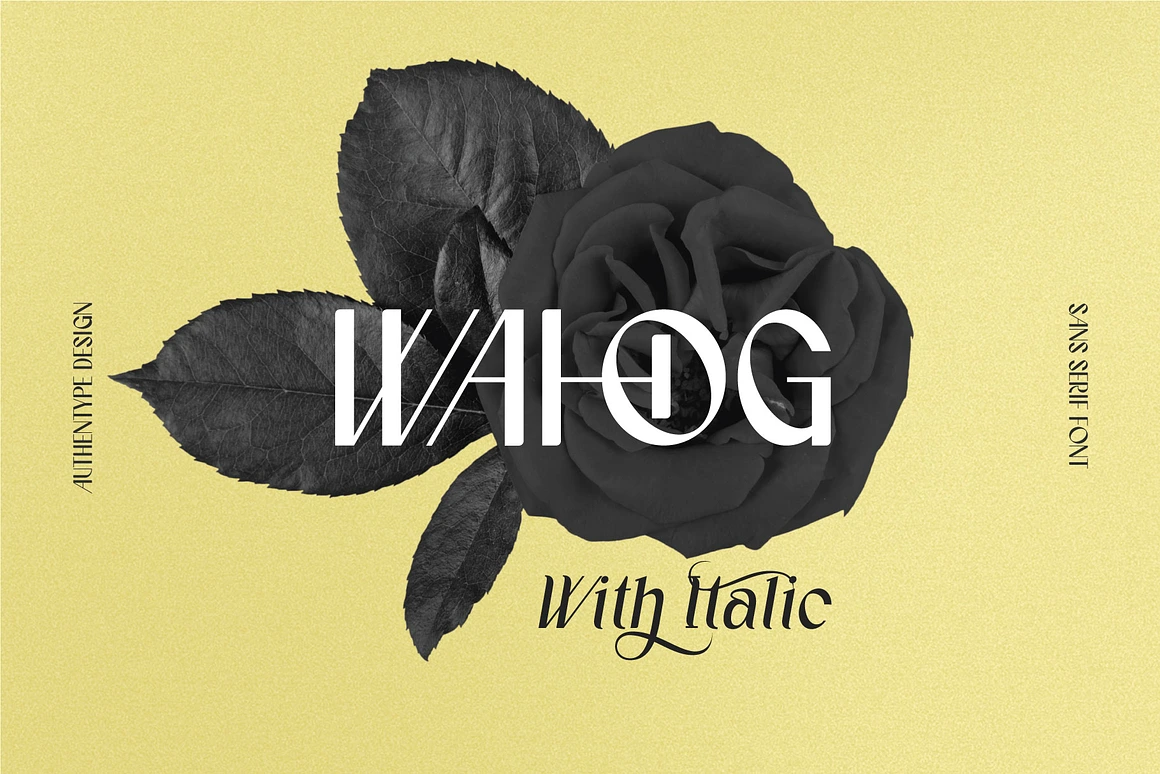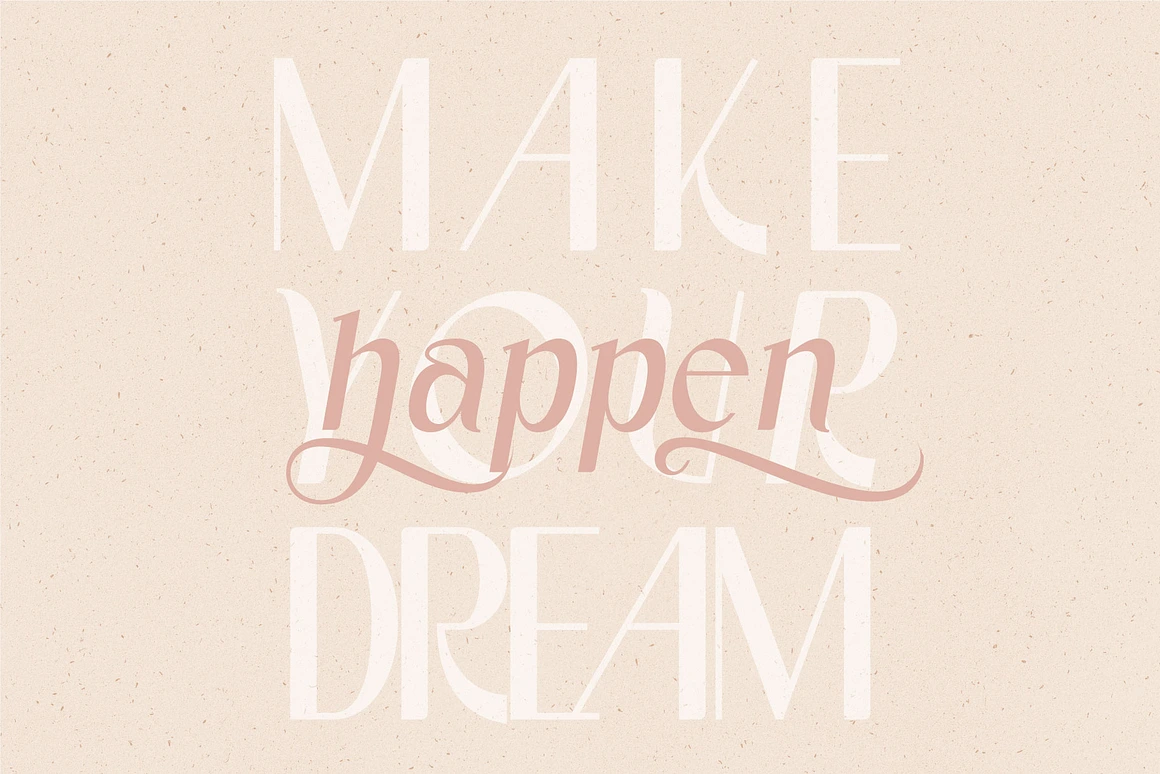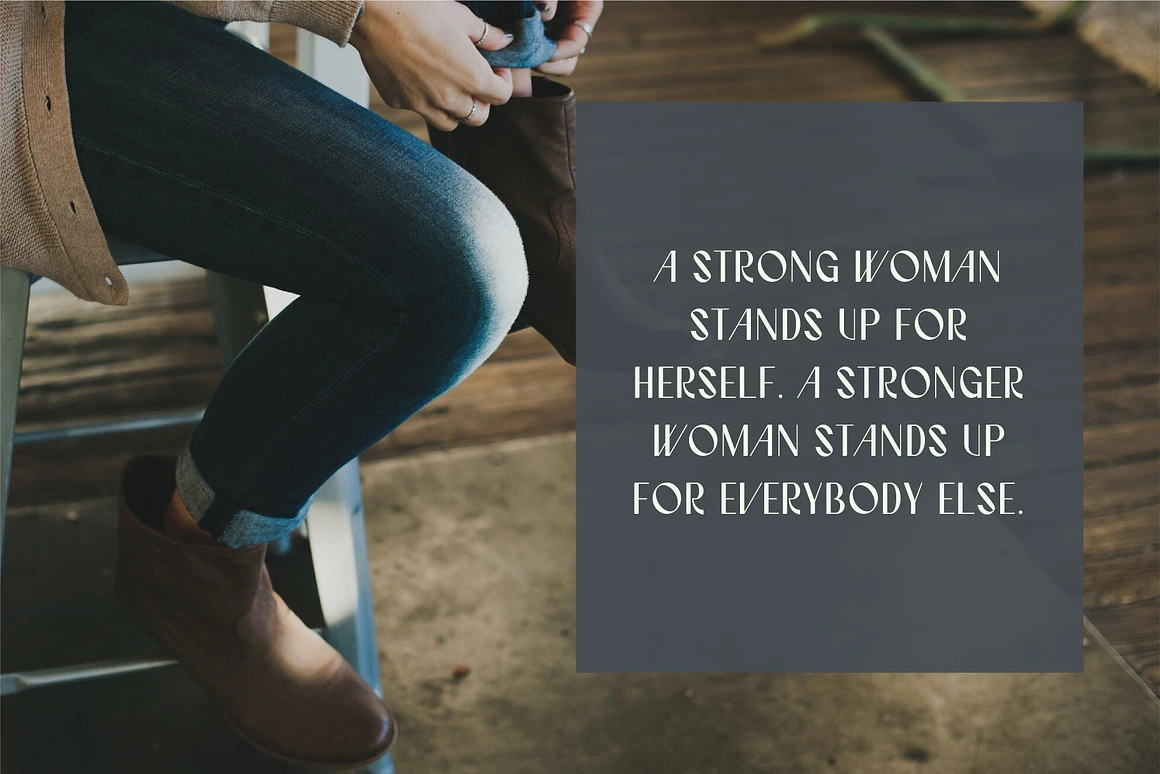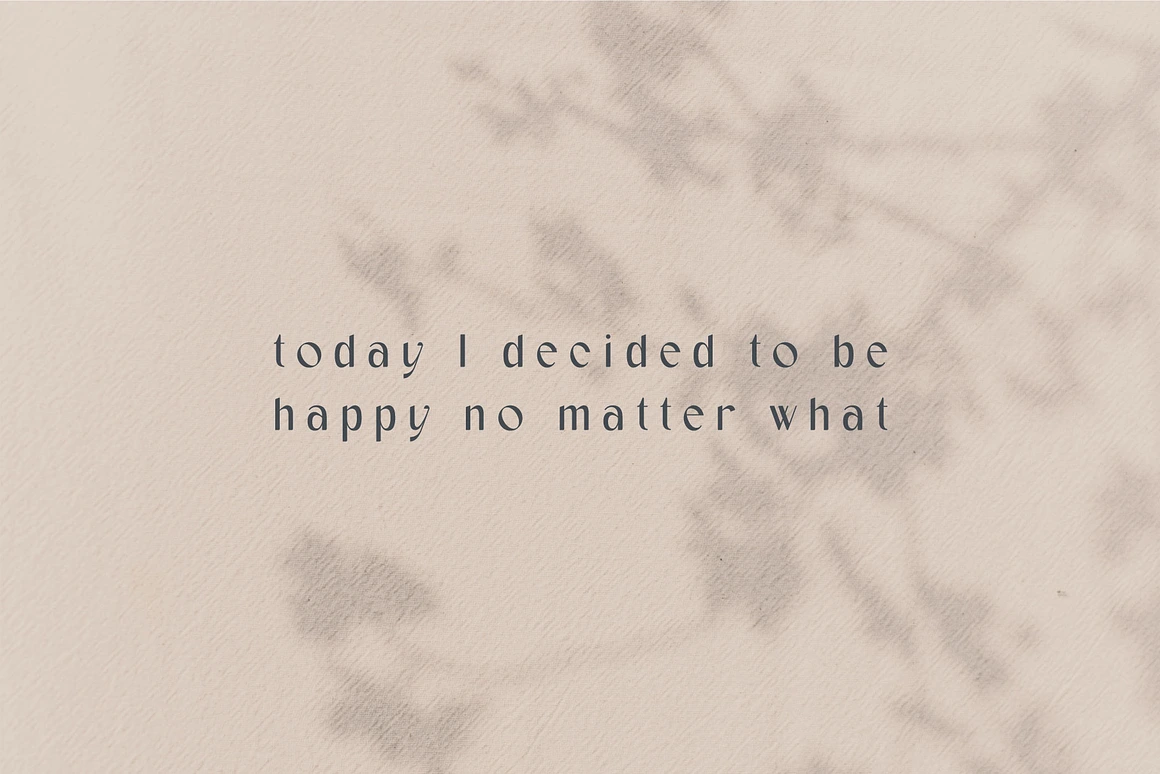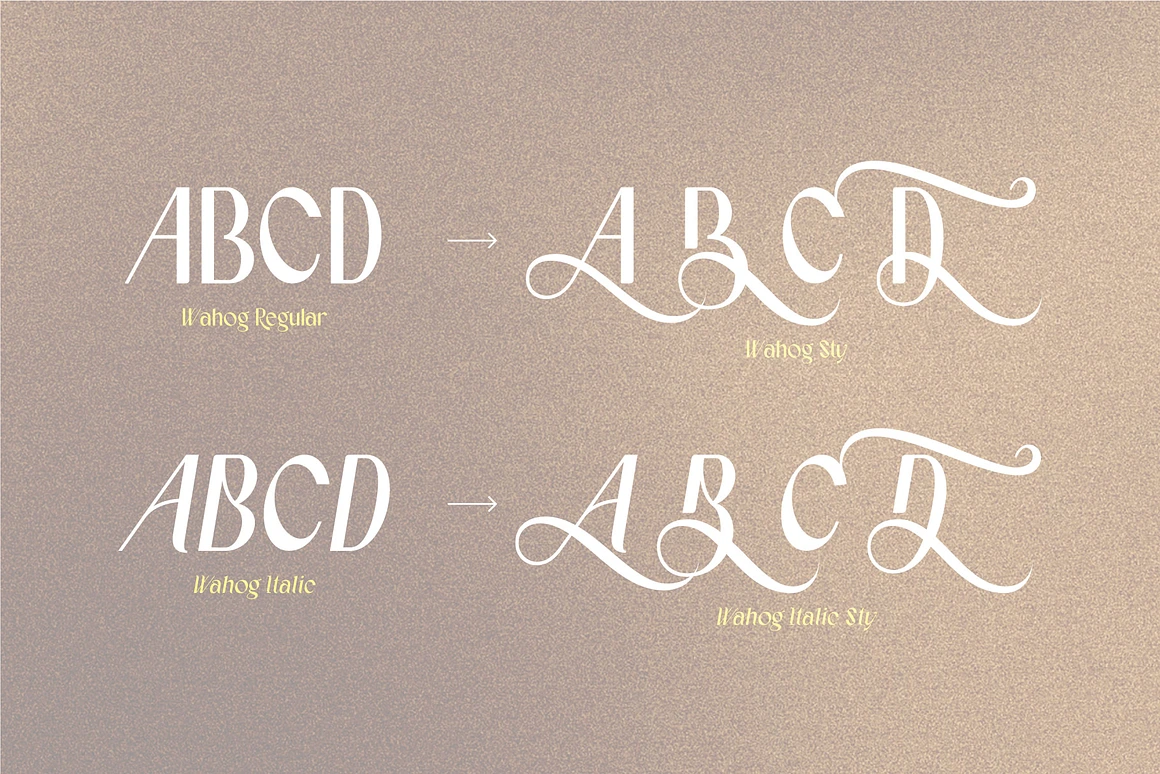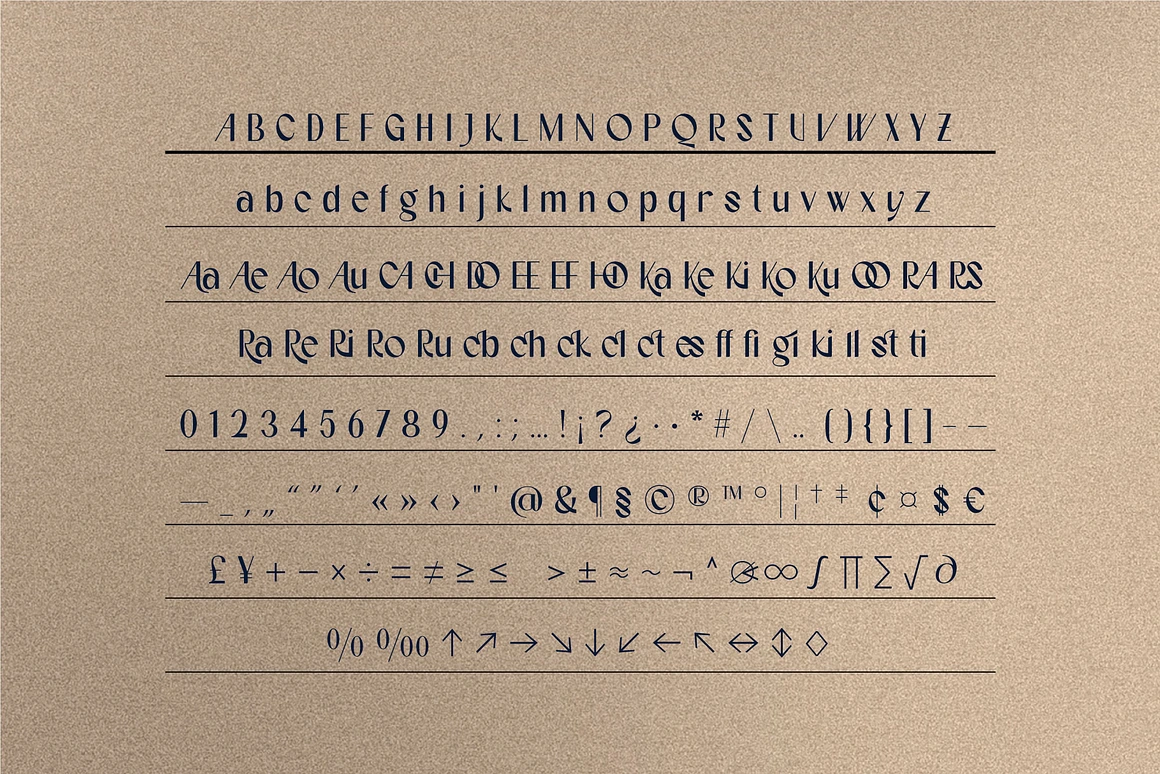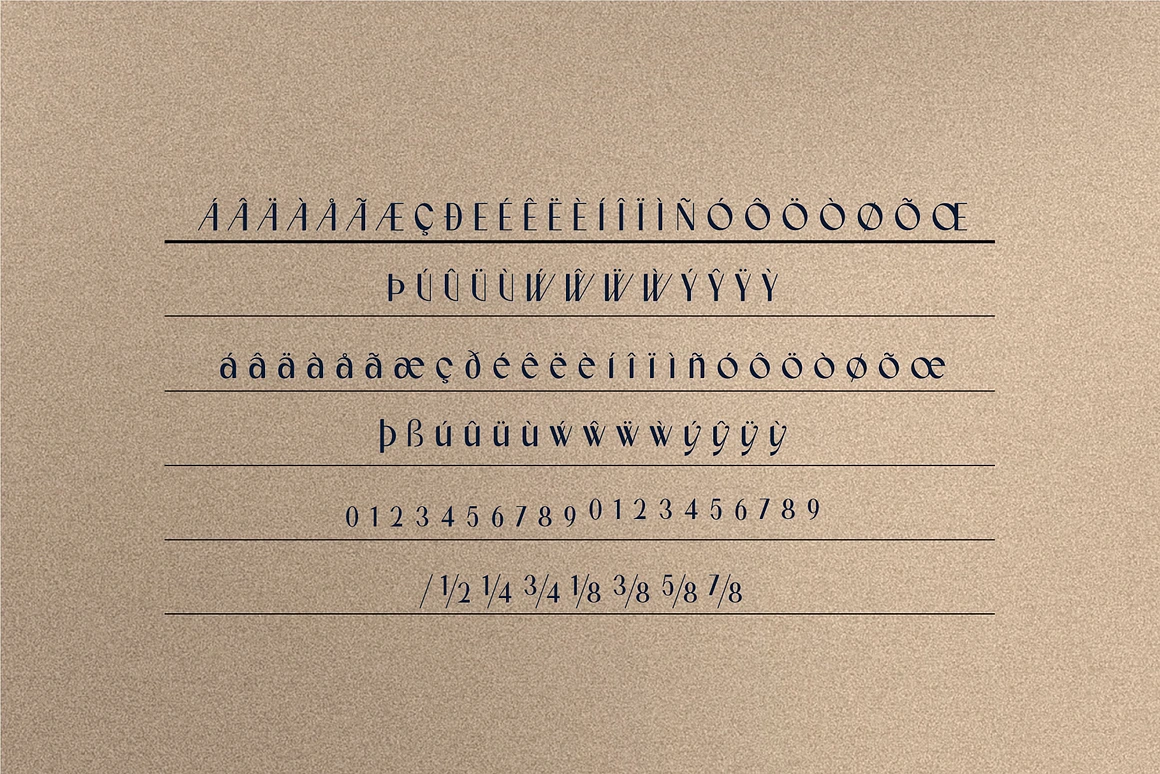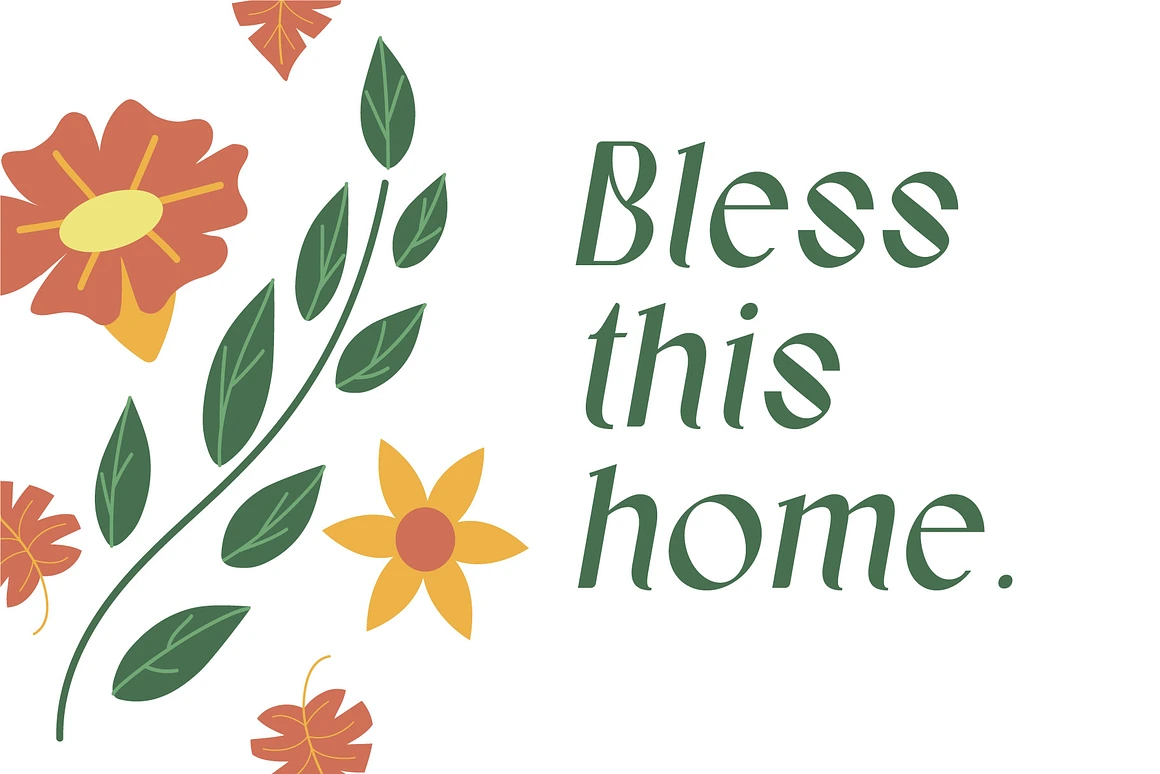
Wahog - Clean and Modern Sans Serif Font
Wahog is a clean and modern sans serif font designed for versatility. Its smooth curves, subtle contrast, and stylish italic option make it perfect for branding, editorial design, social media, packaging, and web projects.
✔ Wahog – Clean and Modern Sans Serif Font Regular & Italic styles
✔ Multilingual support (ä ö ü Ä Ö Ü ß ¿ ¡)